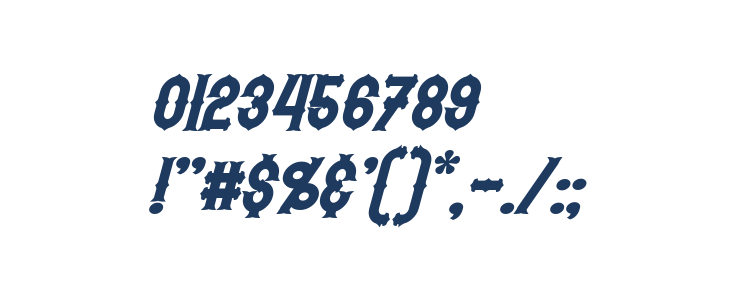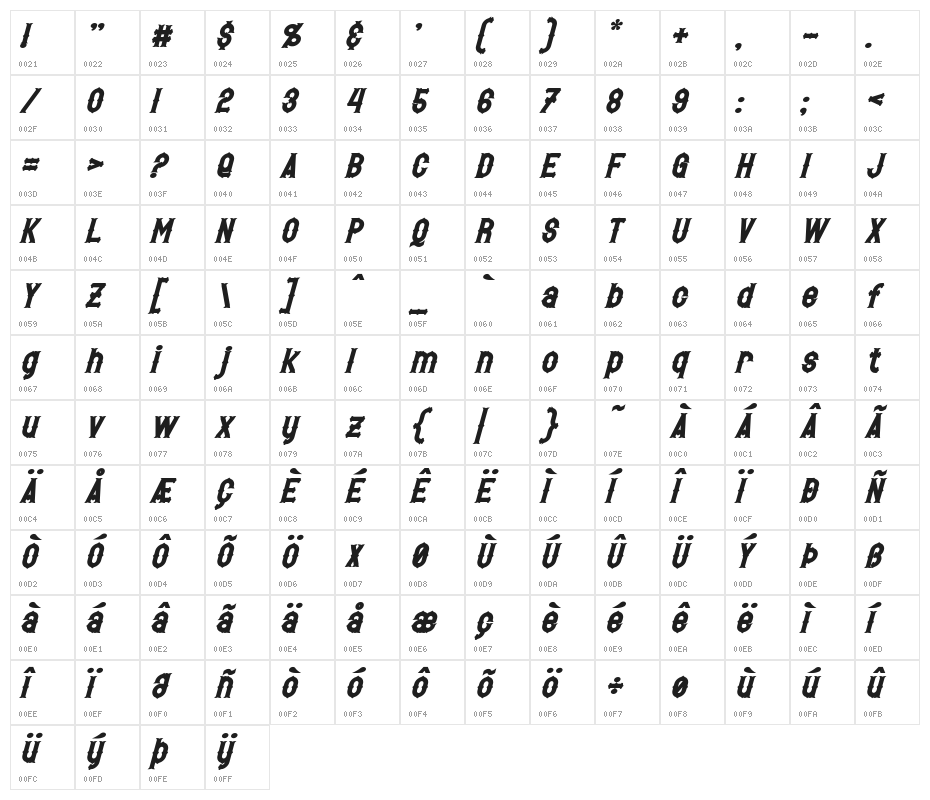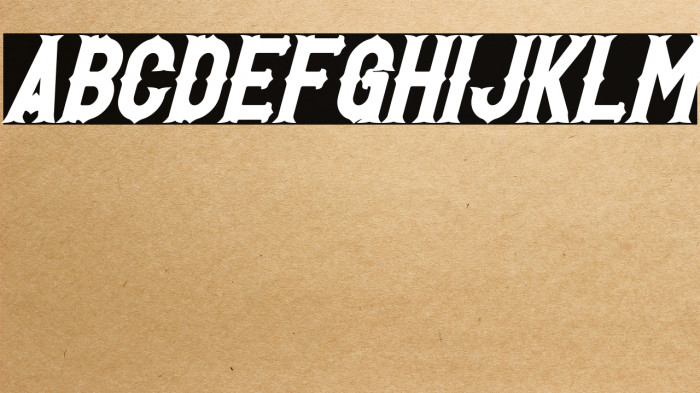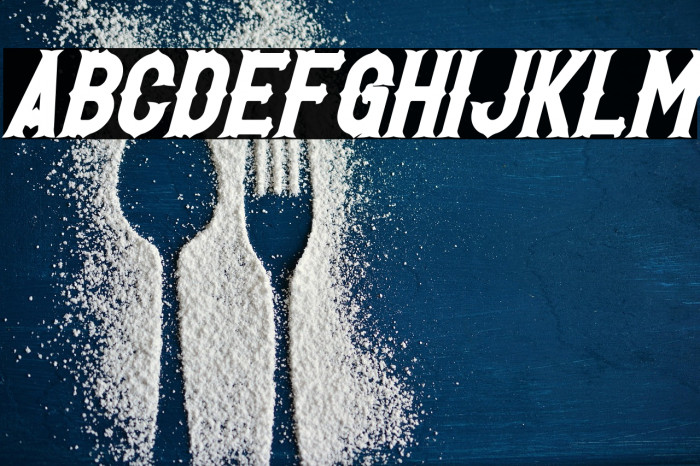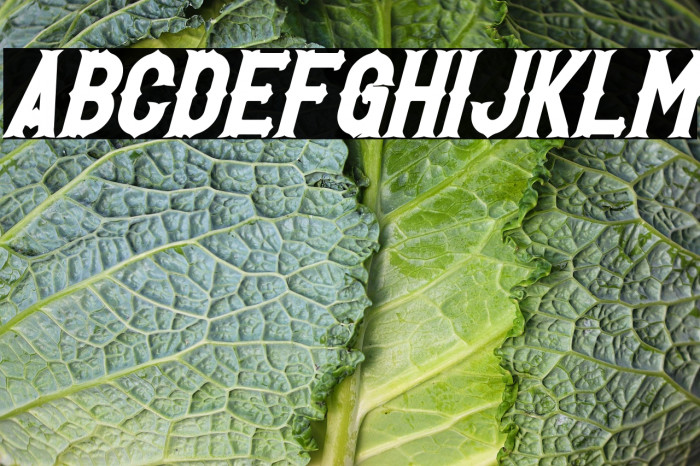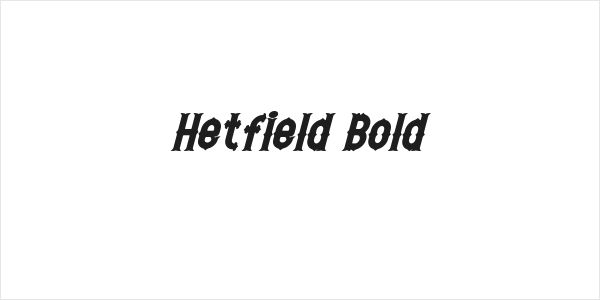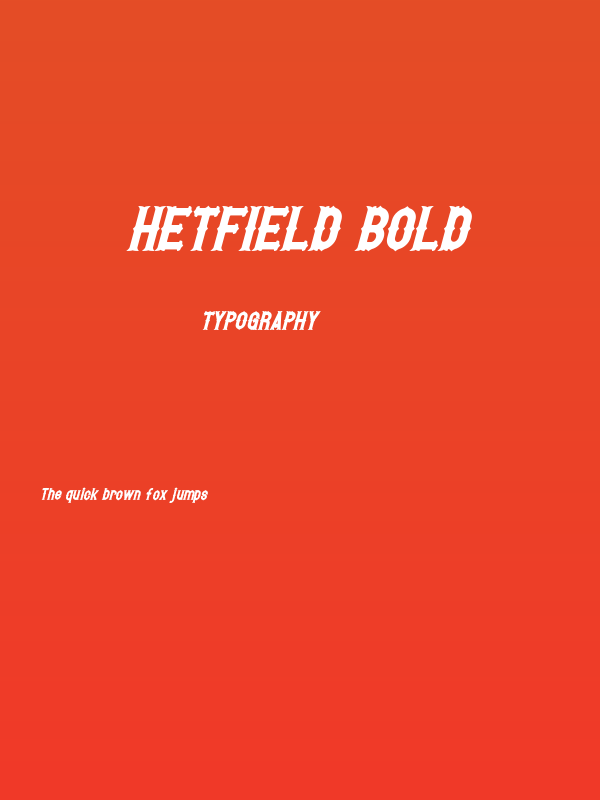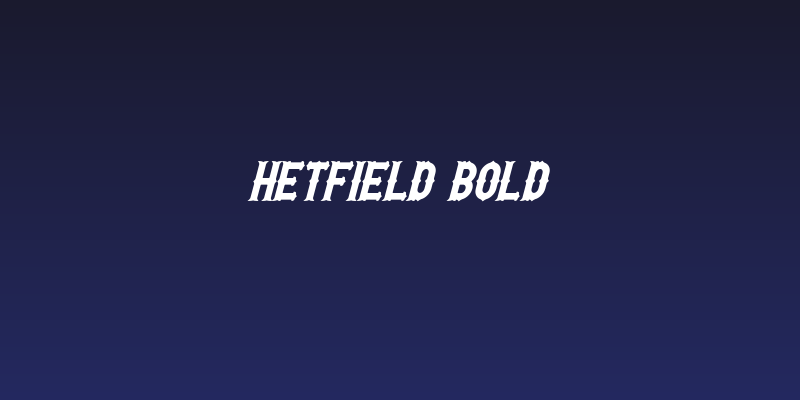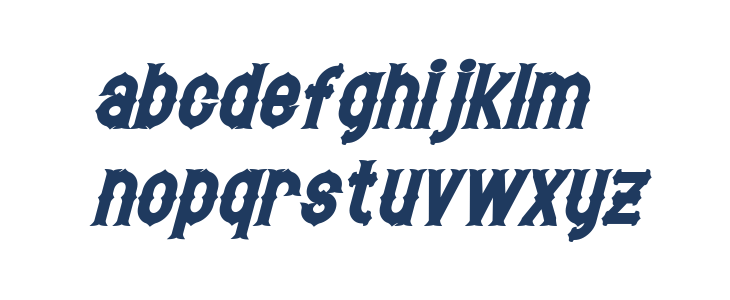
Hetfield Bold Font
Hetfield Bold Description
This font features a bold and aggressive style, characterized by sharp, angular edges and a strong presence. The uppercase and lowercase letters maintain a consistent weight, emphasizing a sense of power and intensity. The numbers and special characters follow the same bold design, ensuring uniformity across all glyphs. The font's unique style is reminiscent of heavy metal and rock aesthetics, making it ideal for projects that require a strong visual impact. Its distinct appearance is both eye-catching and memorable, suitable for a variety of creative applications.
| Proposed Projects | Album covers, band logos, posters, merchandise, and any project requiring a bold statement. |